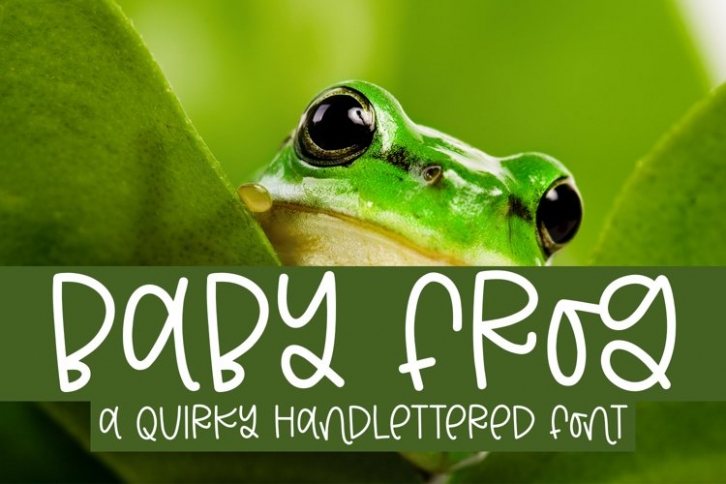
Baby Frog is a gorgeous font that was realeased on April 10, 2022. The font can be used in many style contexts and design environments. Perfect for invitations, magazines, websites, logos, and more! It was designed by plusstore and the file size is 9.88 MB. Thanks for checking out this font!